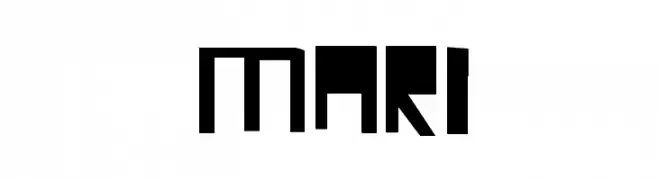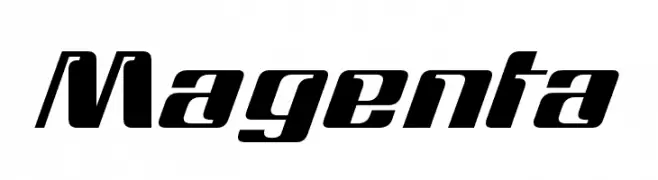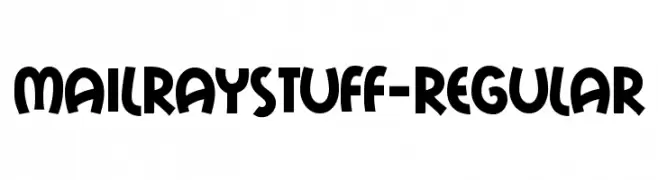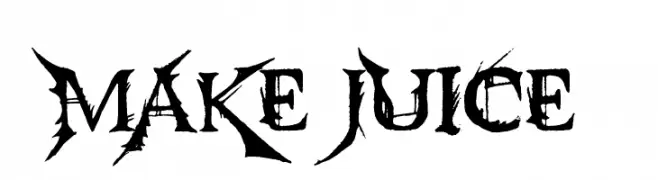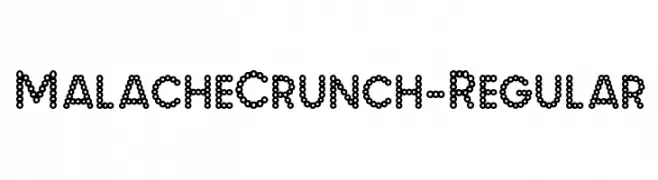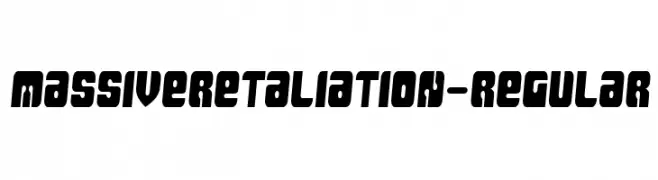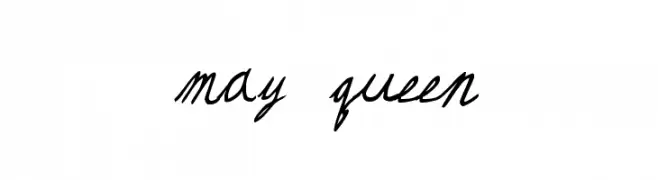
A bold, slanted font with a geometric and dynamic style.
A bold, rounded, and playful font with smooth curves and a dynamic style.
A bold, edgy font with sharp, jagged edges and a distressed, rebellious style.
A decorative font composed of interconnected circular dots, offering a playful and modern design.
A bold, geometric font with a futuristic and angular design.
A bold, rounded font with a modern and slightly retro style.
A flowing, cursive font with a natural handwritten style.